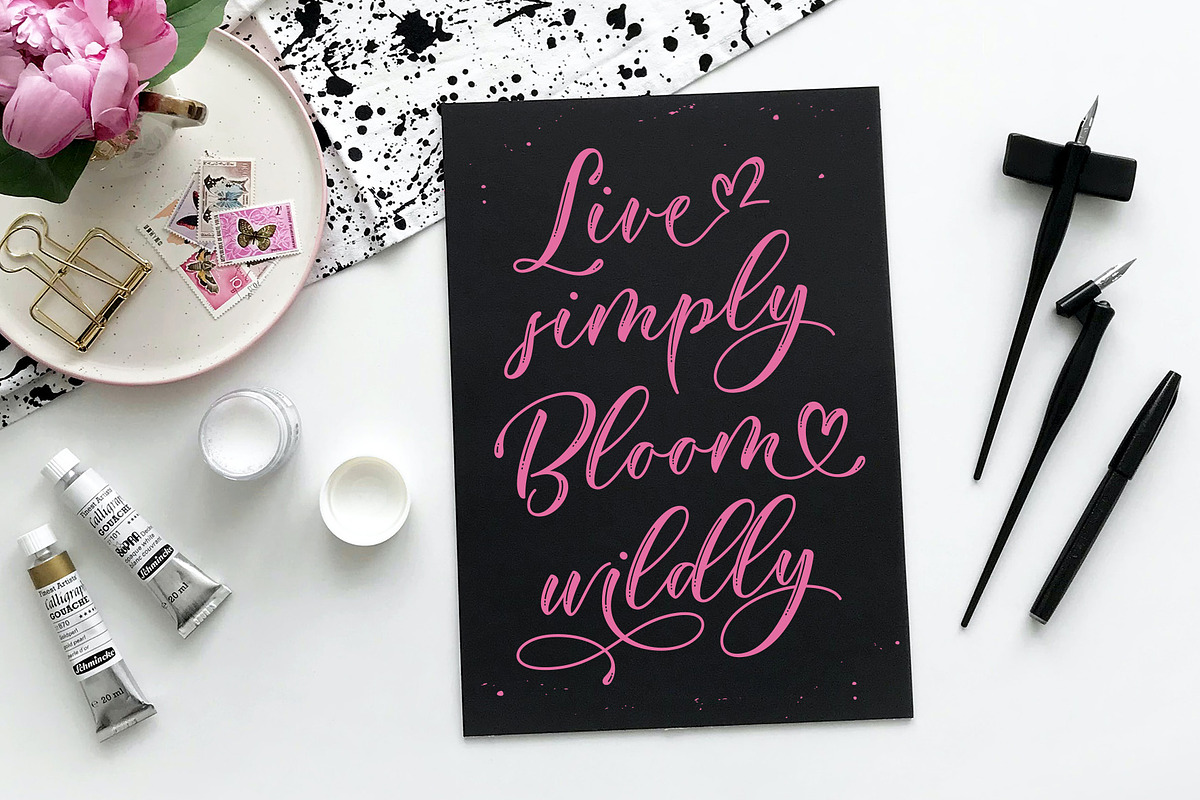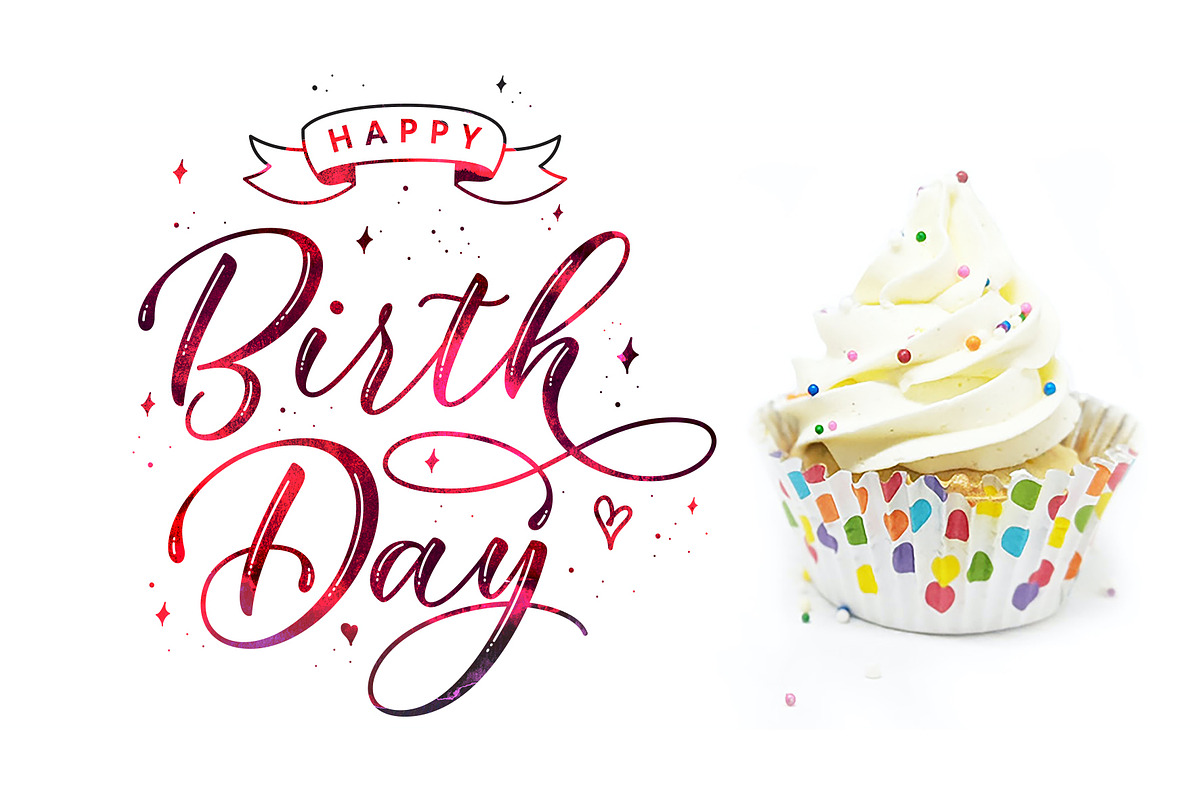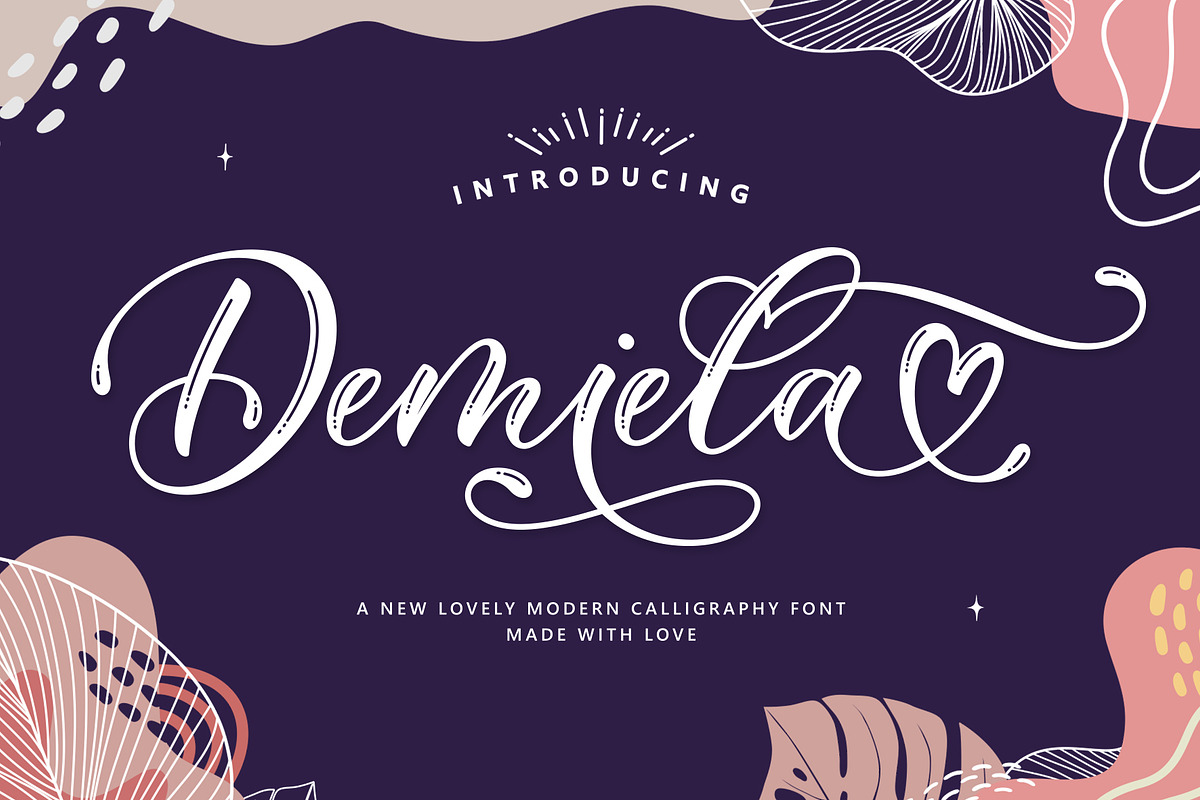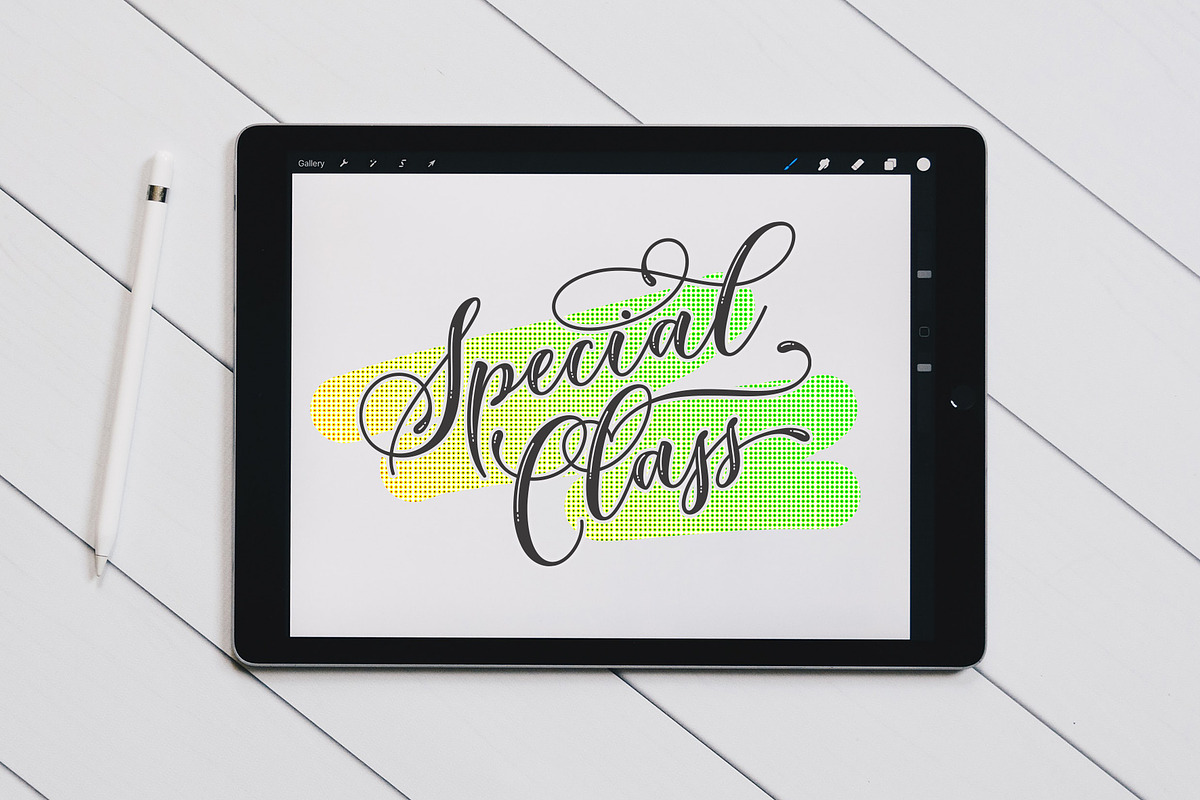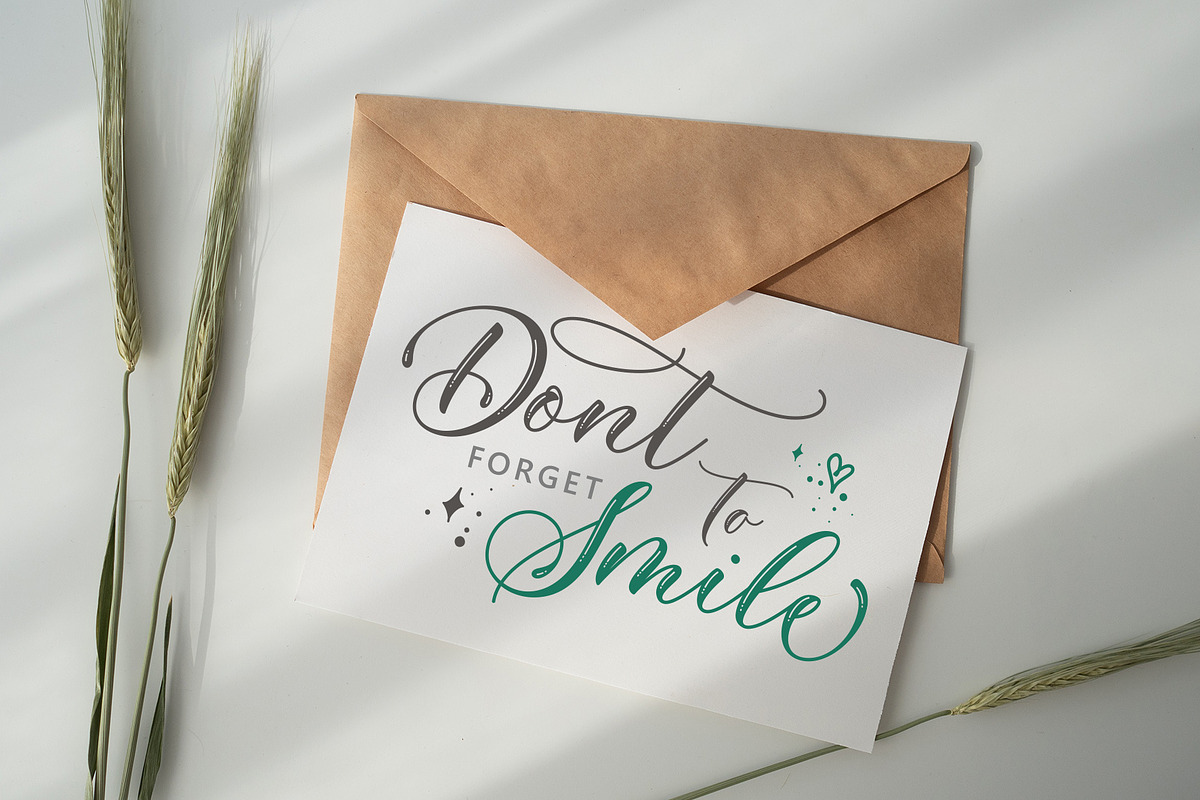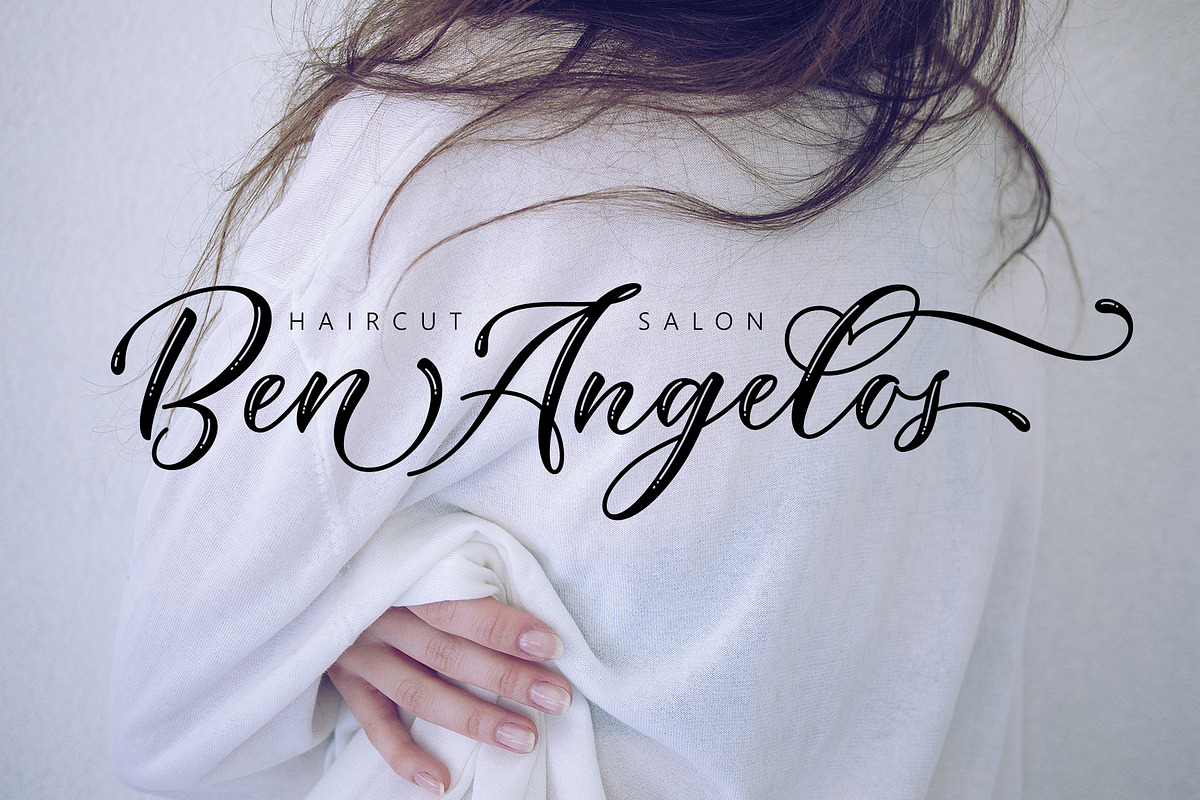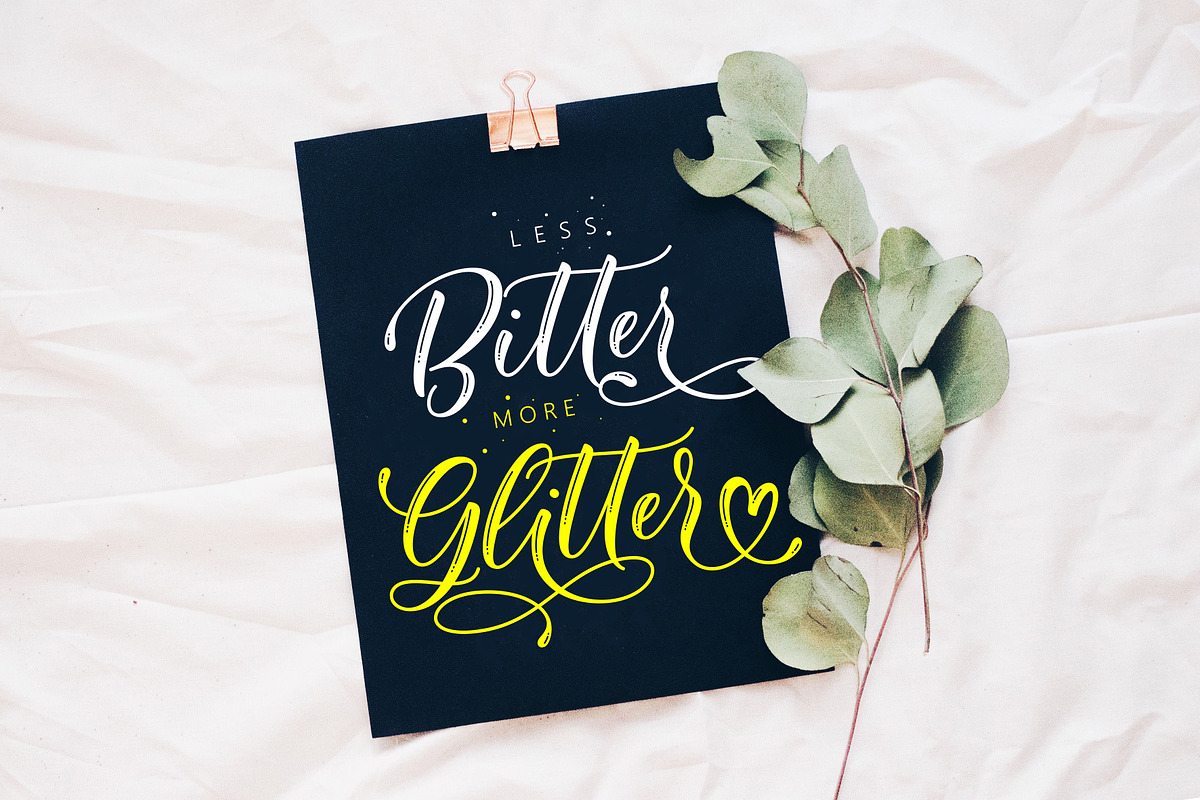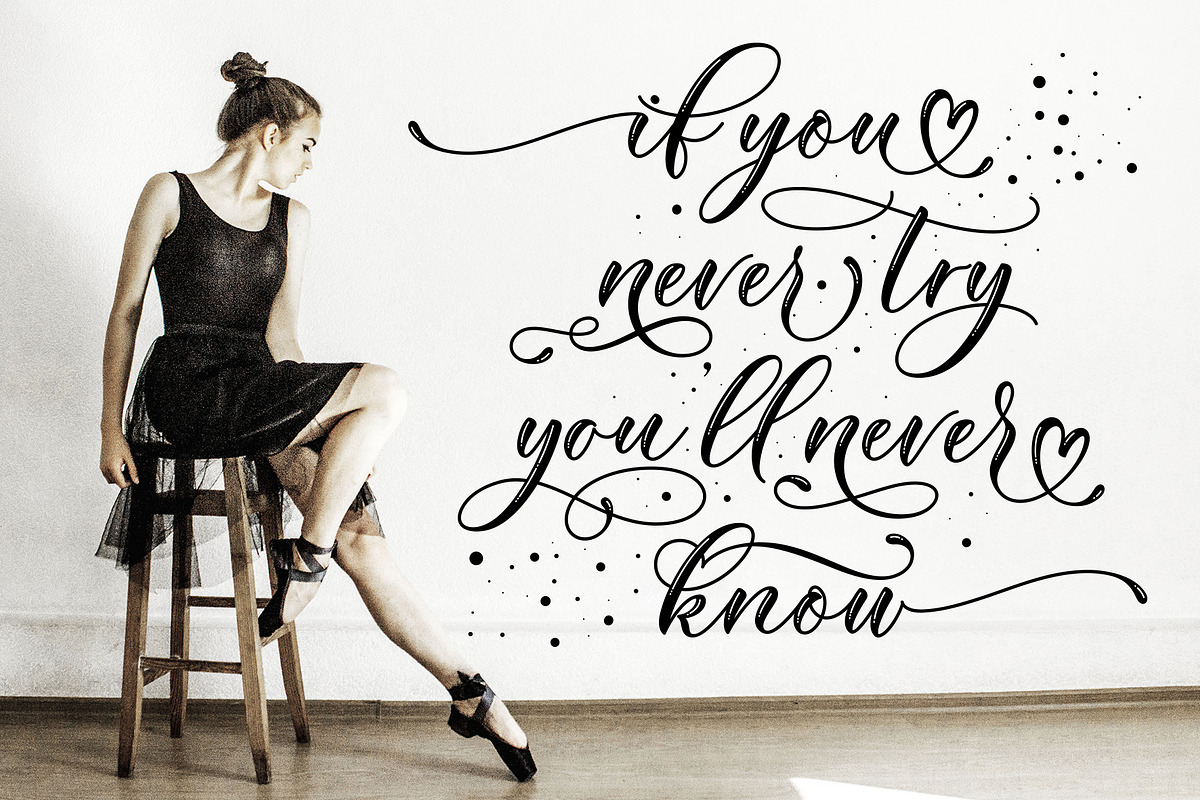
Demiela Script
Demiela Script is a beautiful modern calligraphy script font that is suitable for branding, wedding invitations, greeting cards, posters, name card, quotes, blog header, logo, fashion, apparel, letter, stationery and other projects.
The font has PUA Unicode (Private Use Areas - font specific code). That all the alternative characters (with flourishes and swirly lines) can be easily accessed in full through Windows and Mac and you can load them into applications such as Cricut Design Space and Silhouette Studio.